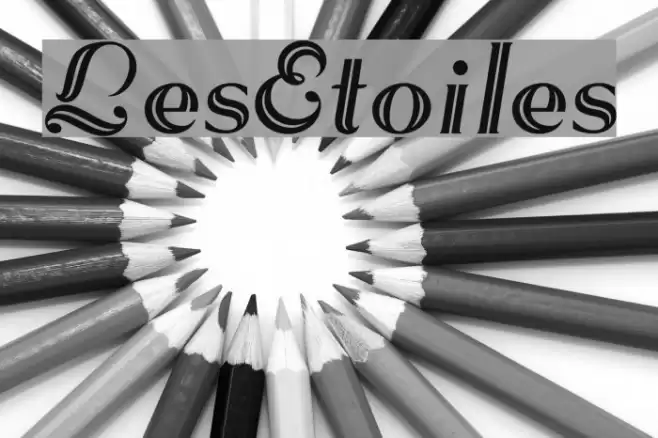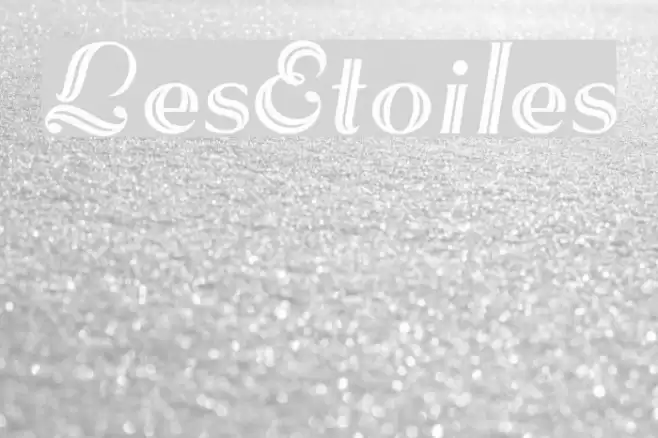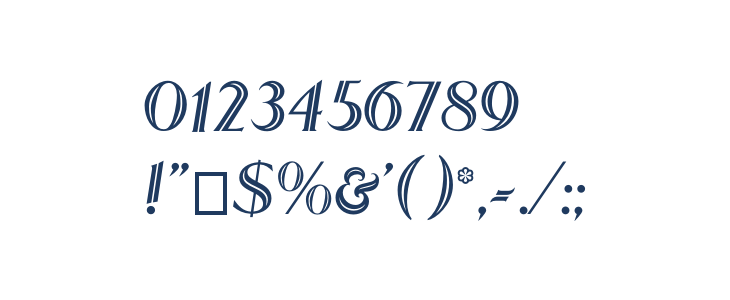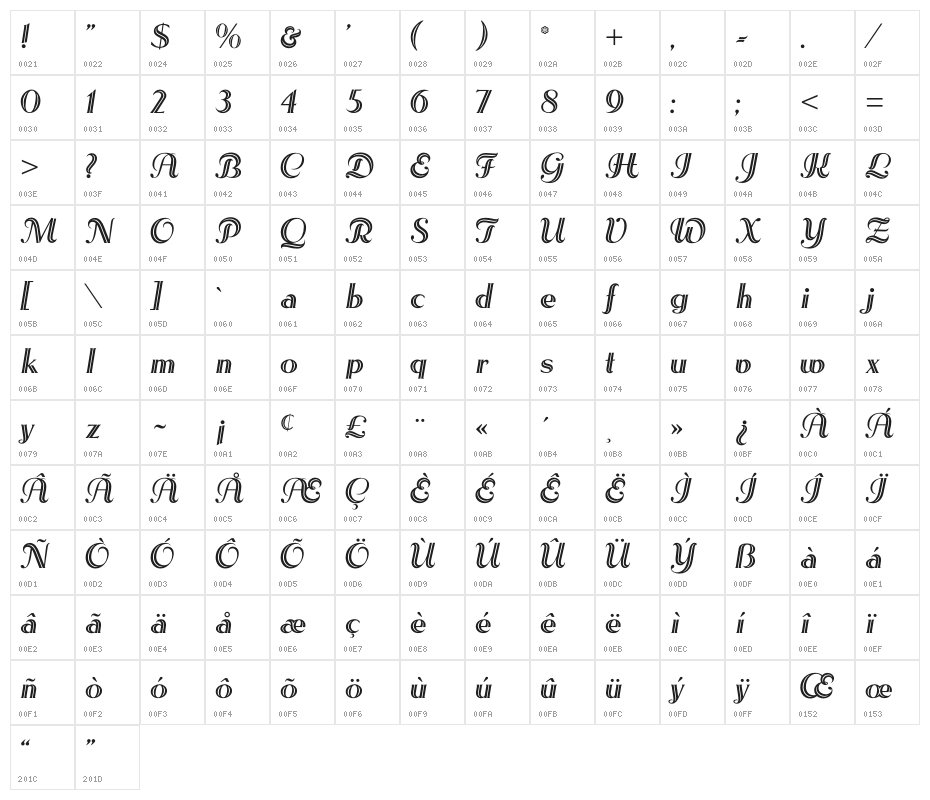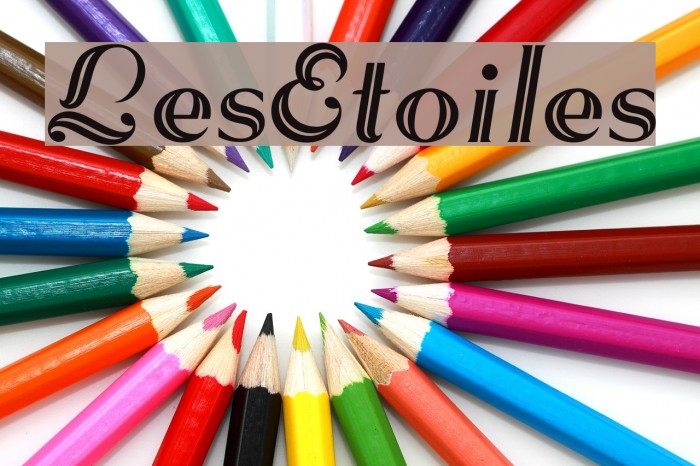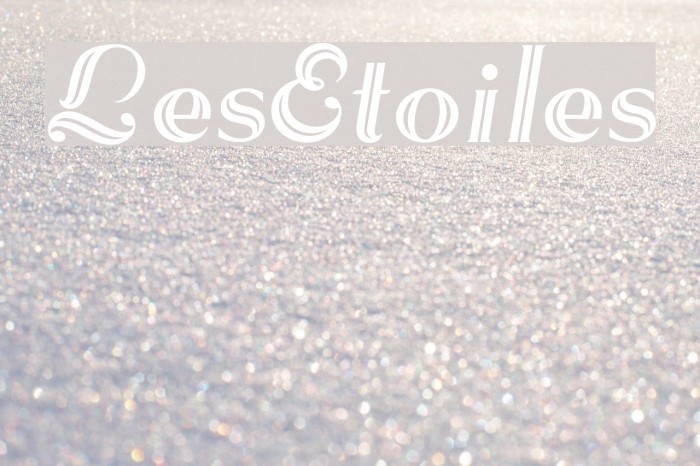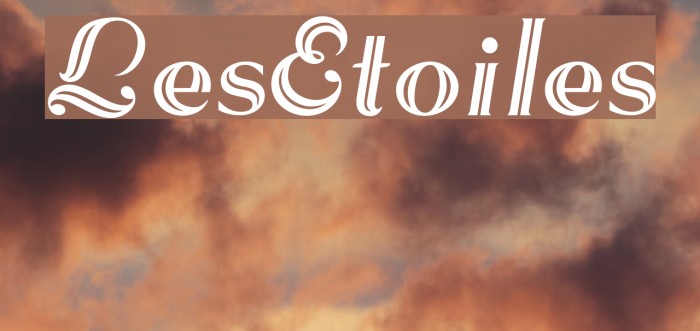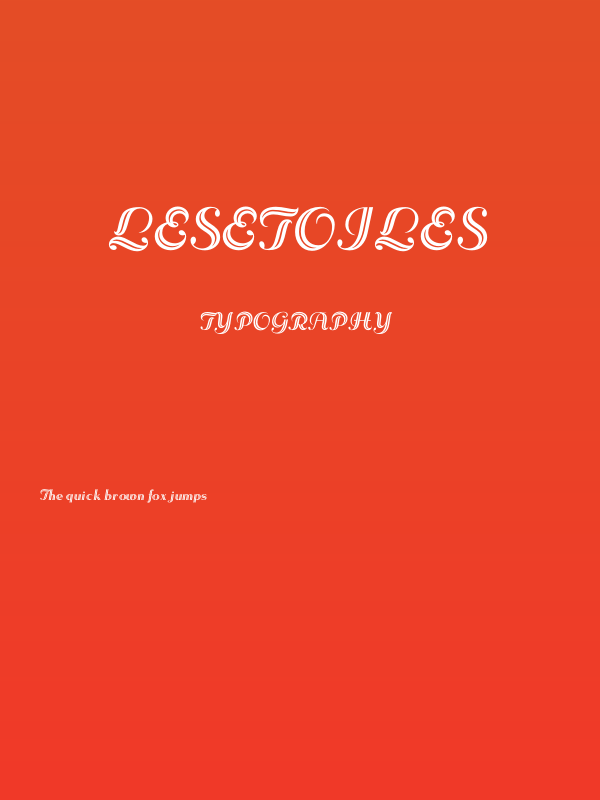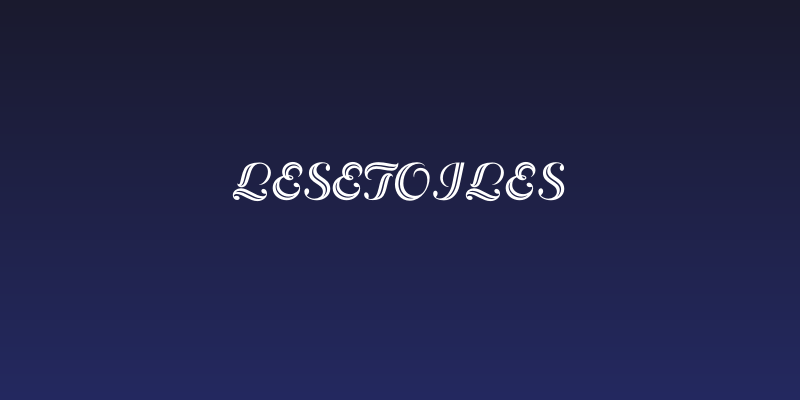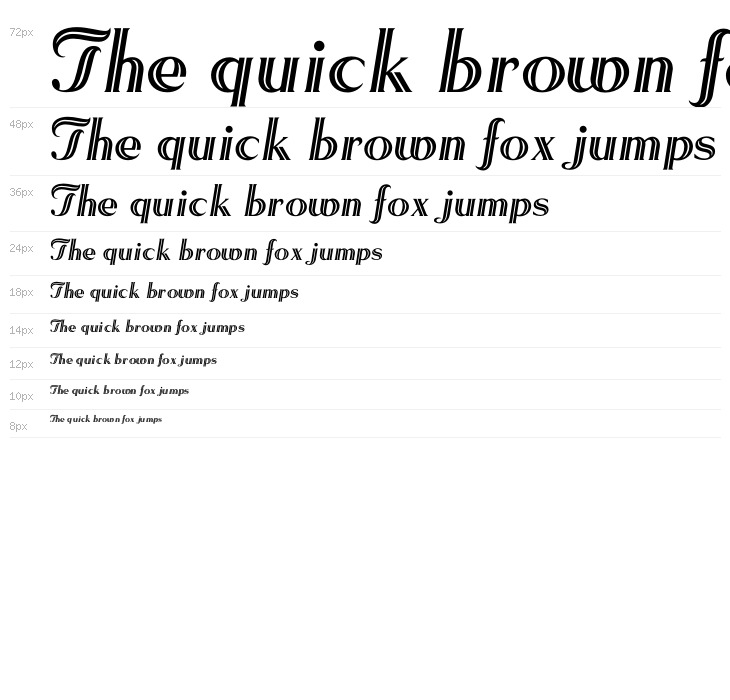
LesEtoiles Font
LesEtoiles Description
This font features a unique blend of elegance and boldness, characterized by its decorative and flowing serifs. The uppercase letters are adorned with intricate swirls and curves, giving them a sophisticated and artistic appearance. The lowercase letters maintain a consistent style, with a slight slant that adds a dynamic feel. Numbers are designed with a similar flair, ensuring uniformity across all characters. The special characters complement the overall aesthetic, making this font suitable for creative and expressive designs.
An elegant and decorative serif font with artistic swirls and curves from Uncategorized fonts.
- Proposed Projects: Ideal for wedding invitations, luxury branding, artistic posters, and editorial design.
- Use Case: Headlines, Logos, Invitations